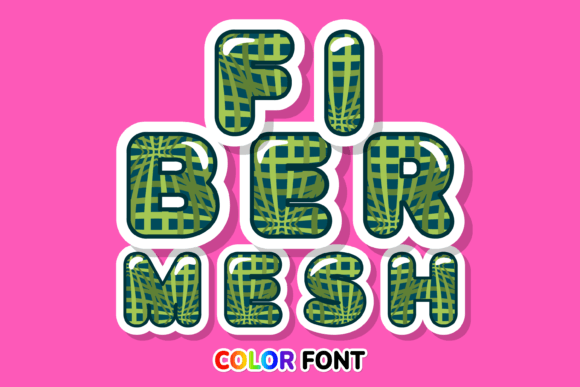
Embark on a captivating typographic adventure with Fiber Mesh, a color font that breathes life into your creative expressions. This extraordinary font family, meticulously crafted by JUSTTYPE, presents a symphony of hues, transforming your designs into vibrant masterpieces.
Fiber Mesh is not just a font; it's an artistic gateway that invites you to unleash your imagination and let your creativity flow. Visualize your designs adorned with an array of colors, each character a stroke of brilliance that adds depth and dimension to your creations. From custom designs to DIY crafts, Fiber Mesh elevates your projects with a touch of visual enchantment.
Immerse yourself in the versatility of Fiber Mesh, a font that effortlessly adapts to your creative endeavors. Whether you're designing personalized mugs with Cricut, crafting handmade cards, or embarking on digital art projects, Fiber Mesh seamlessly blends with your vision, adding a splash of color and a touch of whimsy.
Unleash the magic of Fiber Mesh, a font that captivates and enchants. Its colorful characters dance across your designs, evoking emotions and leaving a lasting impression on your audience. Experience the joy of creating designs that speak louder than words, conveying messages with vibrant hues and enchanting forms.